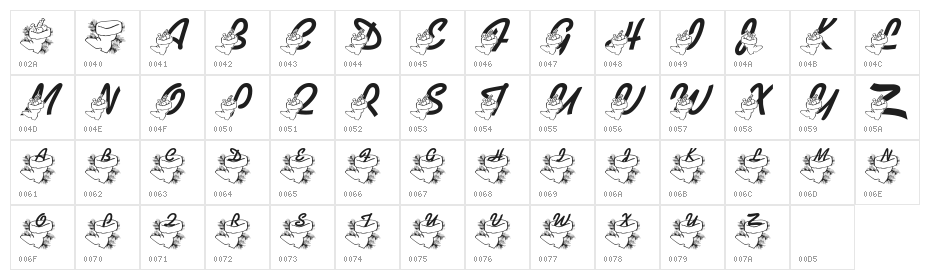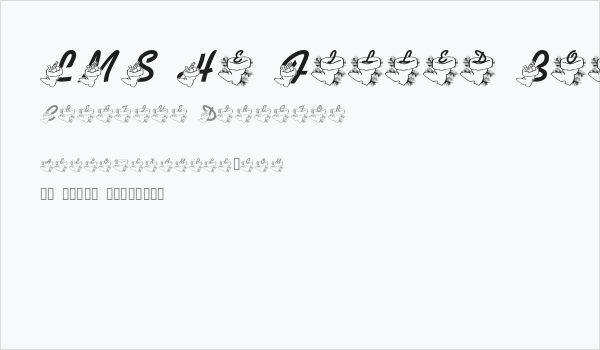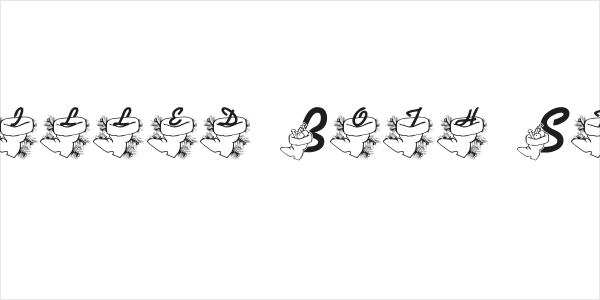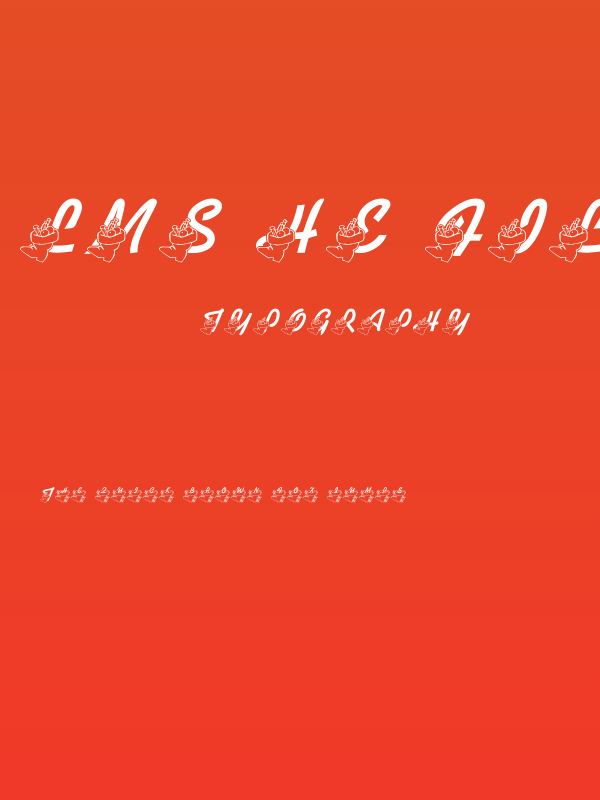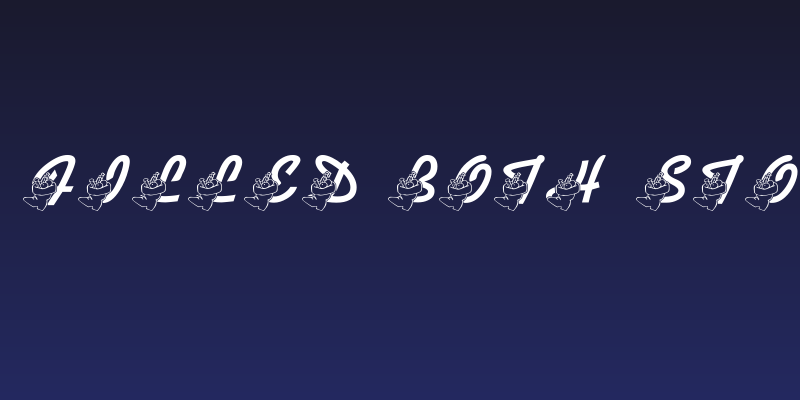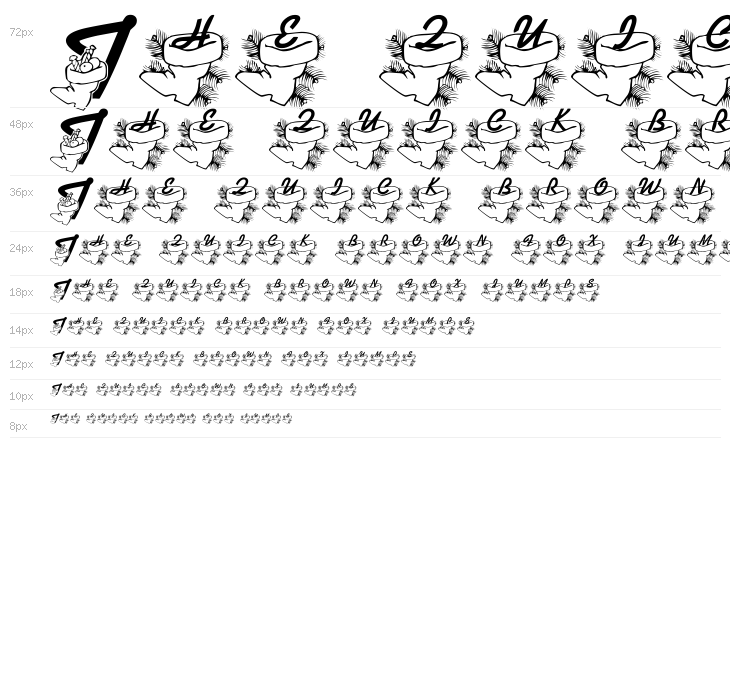
LMS He Filled Both Stockings Font
LMS He Filled Both Stockings Description
This playful and whimsical font features a unique combination of bold, script-like letters intertwined with charming cartoon characters. Each character is depicted in a lively, animated style, adding a sense of fun and creativity to the text. The uppercase and lowercase letters maintain a consistent style, with smooth curves and a slight slant, giving the font a dynamic and energetic feel. The numbers and special characters are equally expressive, ensuring a cohesive look across all elements. This font is perfect for projects that require a touch of humor and personality, making it ideal for children's books, playful branding, or festive invitations.
| Overall Style | Playful, Whimsical, Cartoon |
| Proposed Projects | Children's books, playful branding, festive invitations, comic strips, and creative posters. |